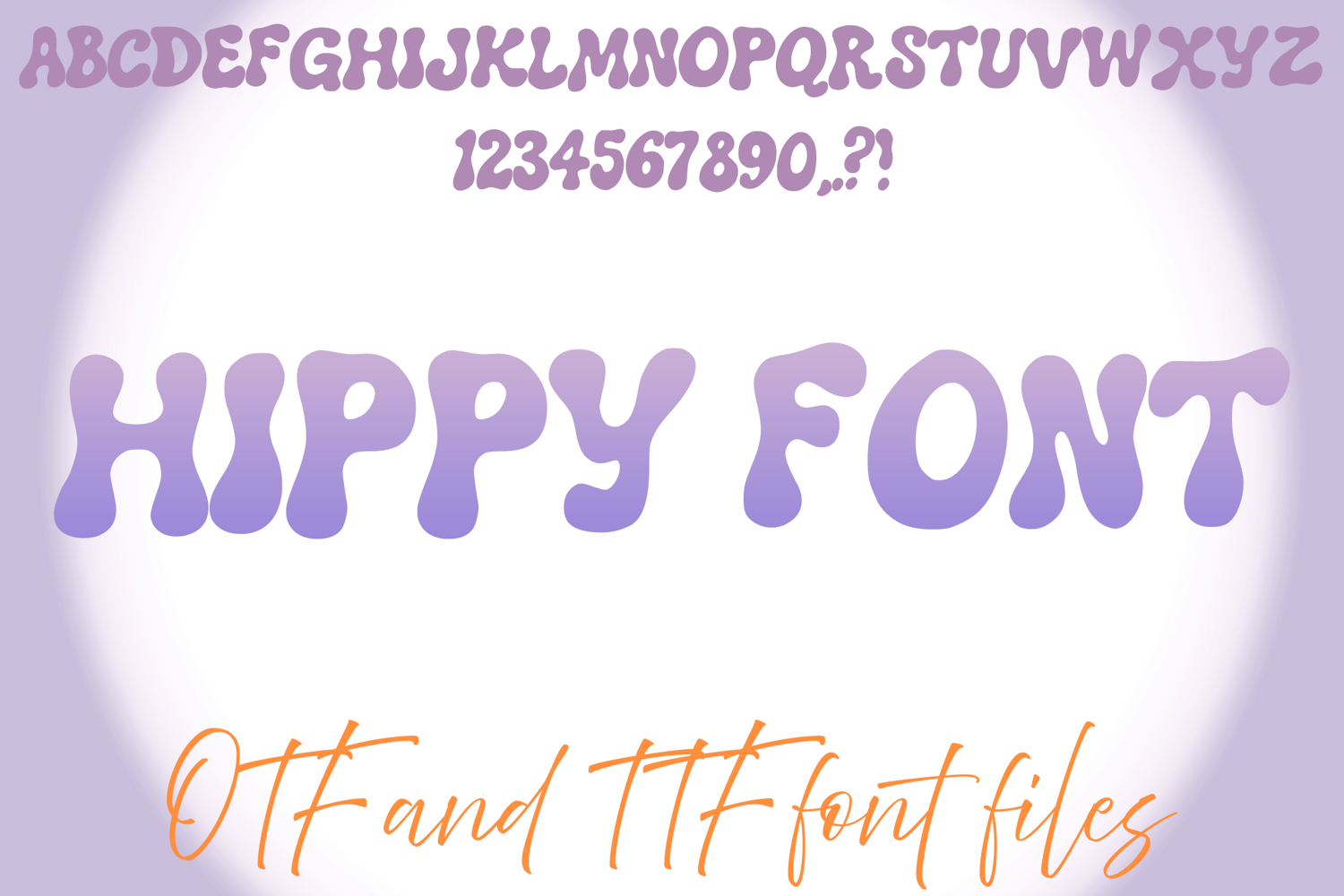
Hippy 60s Typeface Lettering ABC Text Font Wobbly OTF Illustration by Squeeb Creative
Hippy 60s Typeface Lettering ABC Text Font Wobbly OTF Font
Hippy 60s Typeface Lettering ABC Text Font Wobbly OTF Illustration A cartoon style font where you ca…